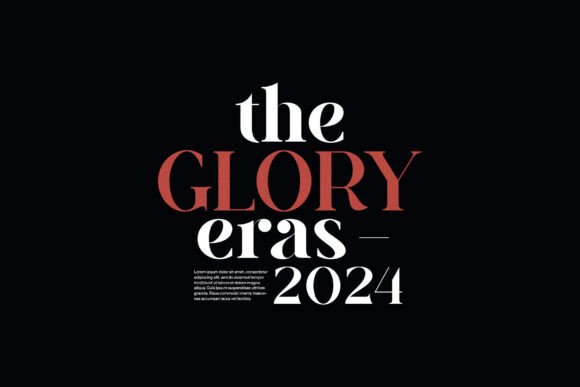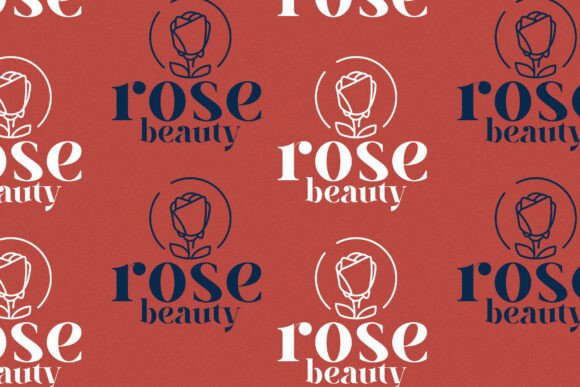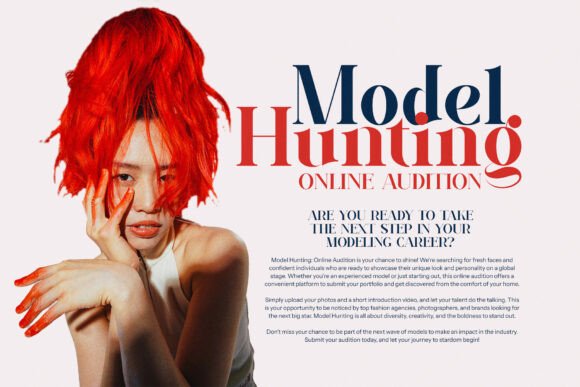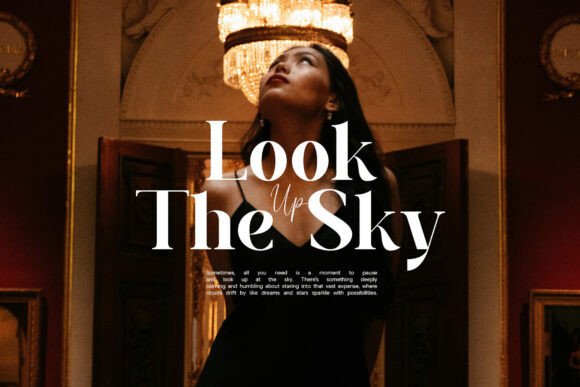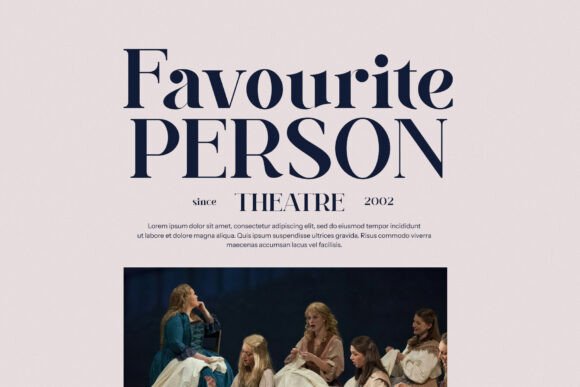
Introduction to Ragin Font
Have you ever found yourself staring at a blank canvas, struggling to bring your creative vision to life? The blank page can be intimidating, but the right design element can make all the difference. For designers, finding the perfect font can be a game-changer, elevating a project from good to great. That’s where the Ragin Font comes in – a sleek and stylish modern serif font that adds a touch of sophistication to any text.
With its clean lines and elegant curves, the Ragin Font is the perfect design resource for both formal and casual projects. Whether you’re working on a high-quality commercial campaign or a personal creative project, this font is sure to make your text stand out. And the best part? It’s available for free download, making it an accessible and valuable resource for designers of all levels.
Key Features of Ragin Font
- Ragin Font is a high-quality, unique design resource ideal for creative projects.
- This font comes in a transparent background, making it easy to use with any design.
- Ragin Font offers a wide range of characters, including uppercase and lowercase letters, numbers, and punctuation marks.
Honest Review: Ragin Font
I recently had the chance to work with the Ragin Font, and I have to say, it’s a real gem. The first thing I noticed was its high quality, crisp and clean lines that make it perfect for any creative project. One of the standout features is its ability to be used with a transparent background, which adds a level of sophistication and elegance to any design.
As a designer, I appreciate the flexibility and versatility that the Ragin Font offers. It’s a great resource to have in your toolkit, and it’s available for free download, which is a major bonus. I’ve used it in a variety of projects, from branding to digital art, and it’s always delivered.
- High-quality design with crisp and clean lines
- Perfect for creative projects, including branding and digital art
- Transparency feature allows for unique design opportunities
- May not be suitable for extremely small text sizes
- Some users may find the font too bold or overpowering
Overall, I’m thoroughly impressed with the Ragin Font. It’s a valuable resource for any designer looking to add some creativity and flair to their projects. With its high-quality design, transparency feature, and free download availability, it’s a must-have in your design toolkit.
Tips for Getting the Most Out of Ragin Font
Ragin Font is suitable for a variety of creative projects, including logos, posters, brochures, and social media graphics. Its unique style and design make it a great choice for creative professionals and hobbyists alike.